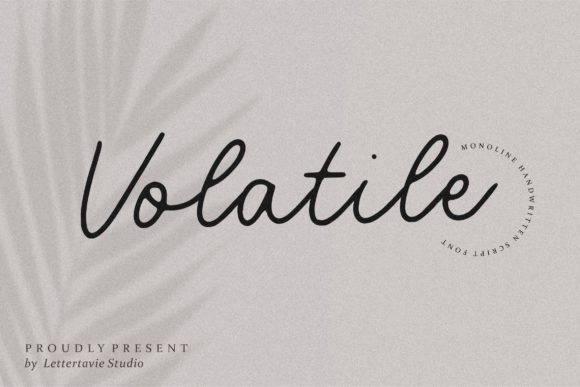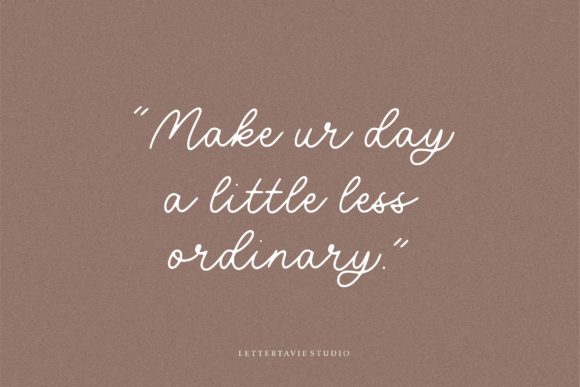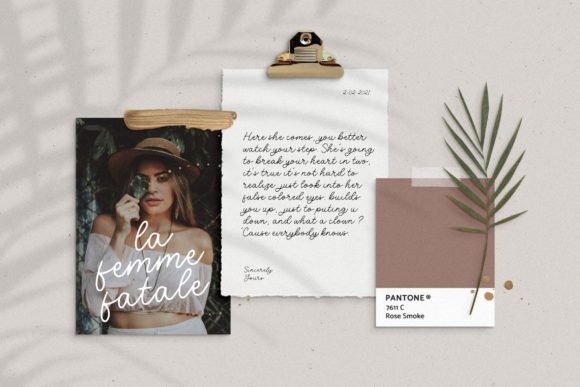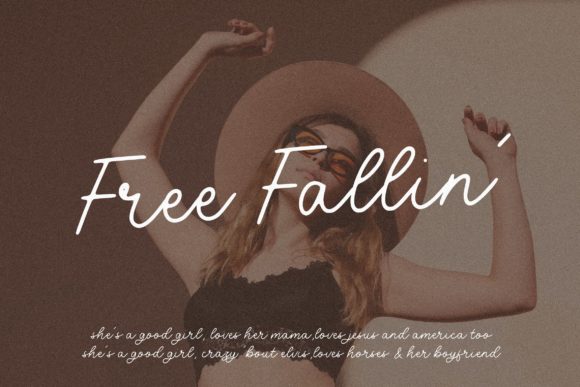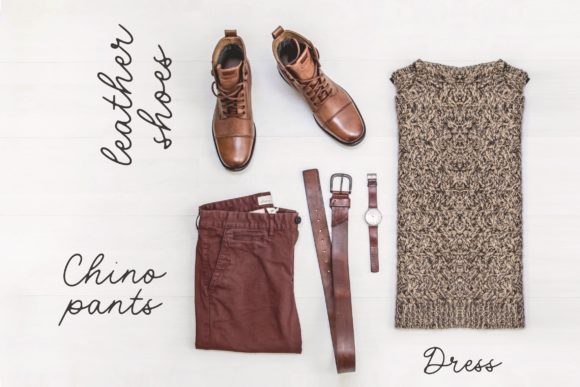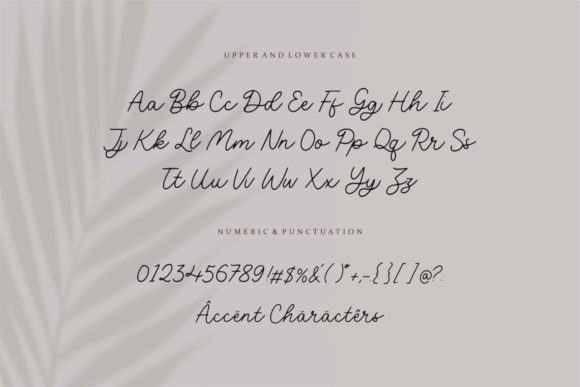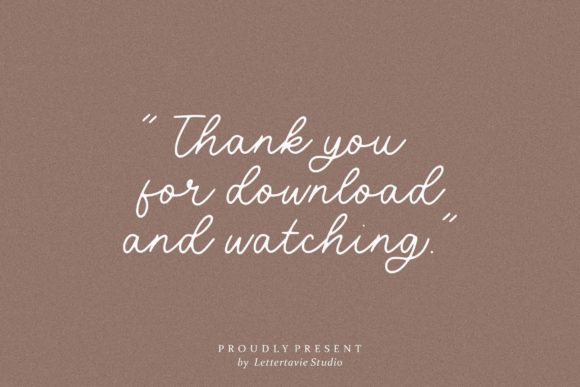
Volatile Font
About Volatile Font
Volatile feels playfully nostalgic and delivers an incredible vintage aesthetic. Use this delicate script font to add a special touch to any design idea you can think of!